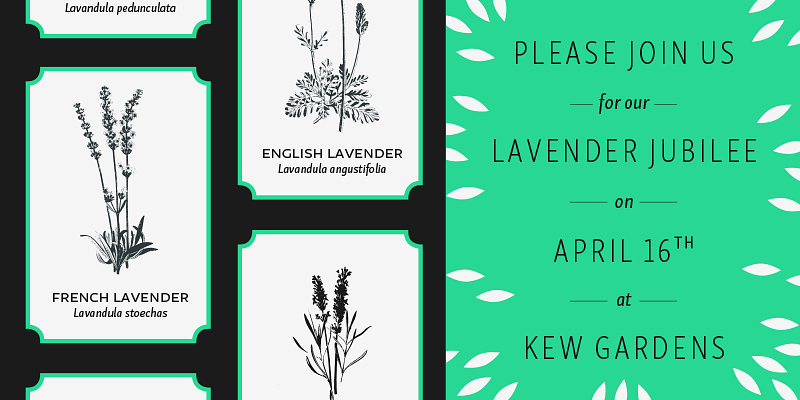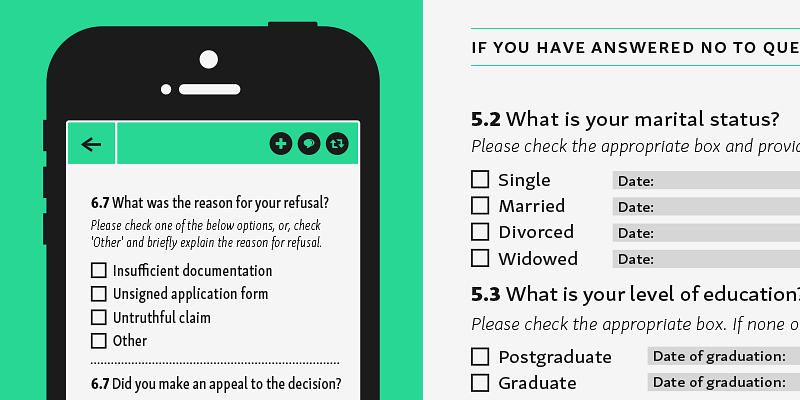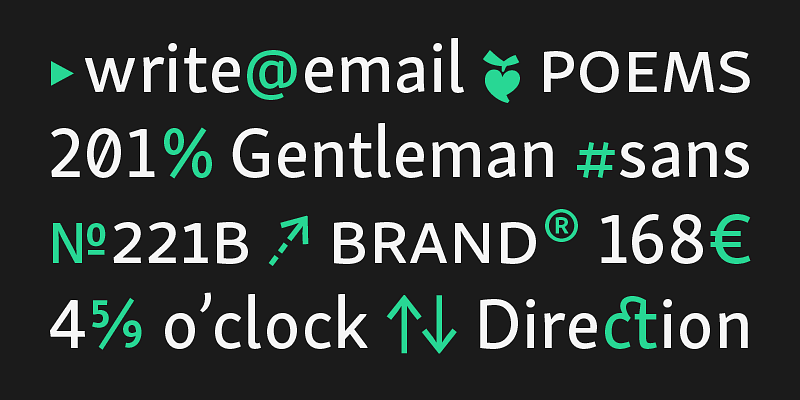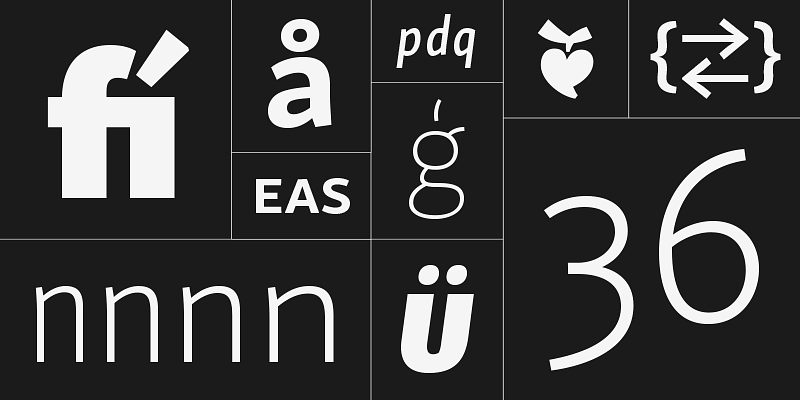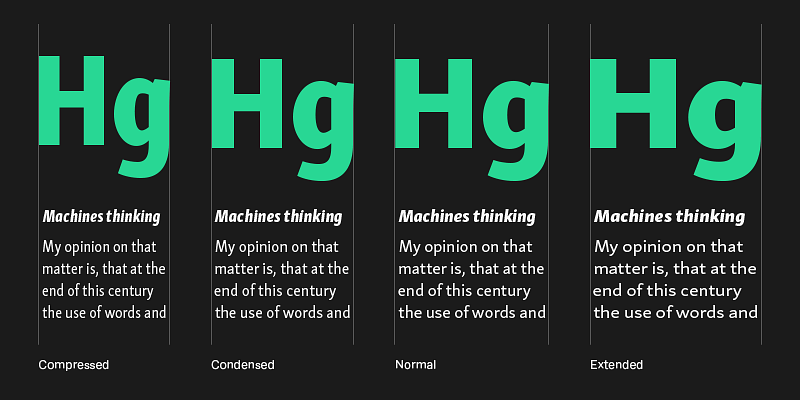
Skolar Sans is a sans-serif companion to the popular serif typeface Skolar. The 72 fonts from gently thin to extra bold, the four width variants will fit all your content needs. Ideal for responsive design.